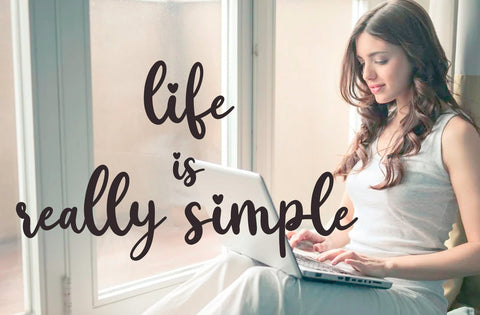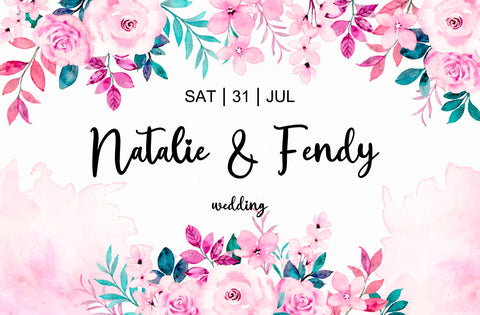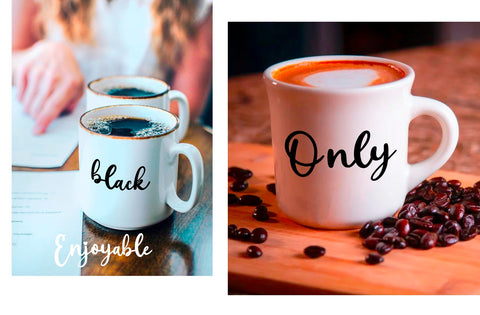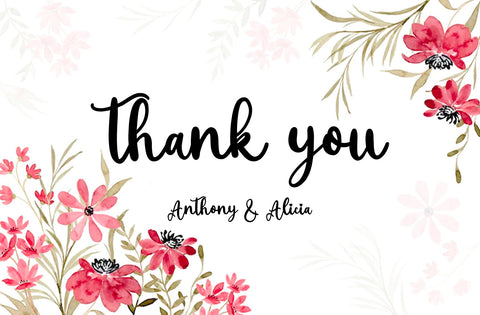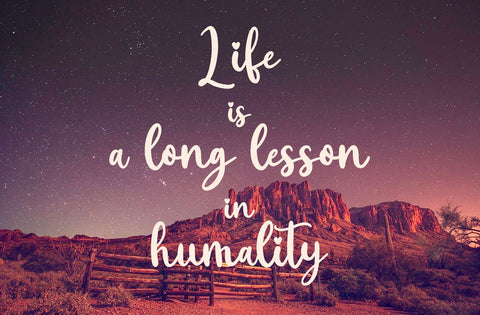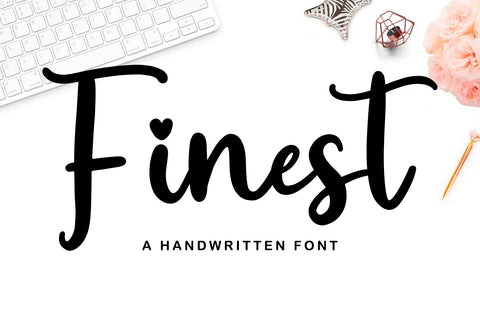
Finest - Handwritten Font
Finest is a cute and lovely handwritten font. Fall in love with its incredibly versatile style and use it to create gorgeous wedding invitations, t-shirt design, stationary art, eye-catching social media posts, and much more!